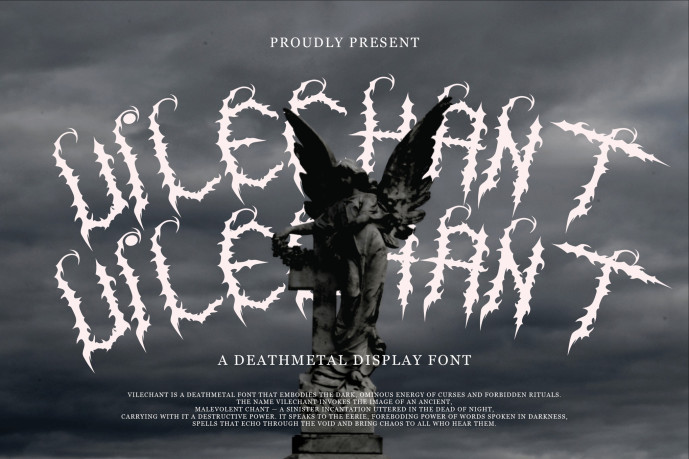
Vilechant – Deathmetal Font
Vilechant – Deathmetal Font is a deathmetal font that embodies the dark, ominous energy of curses and forbidden rituals. The name Vilechant invokes the image of an ancient, malevolent chant — a sinister incantation uttered in the dead of night, carrying with it a destructive power. It speaks to the eerie, foreboding power of words spoken in darkness, spells that echo through the void and bring chaos to all who hear them.